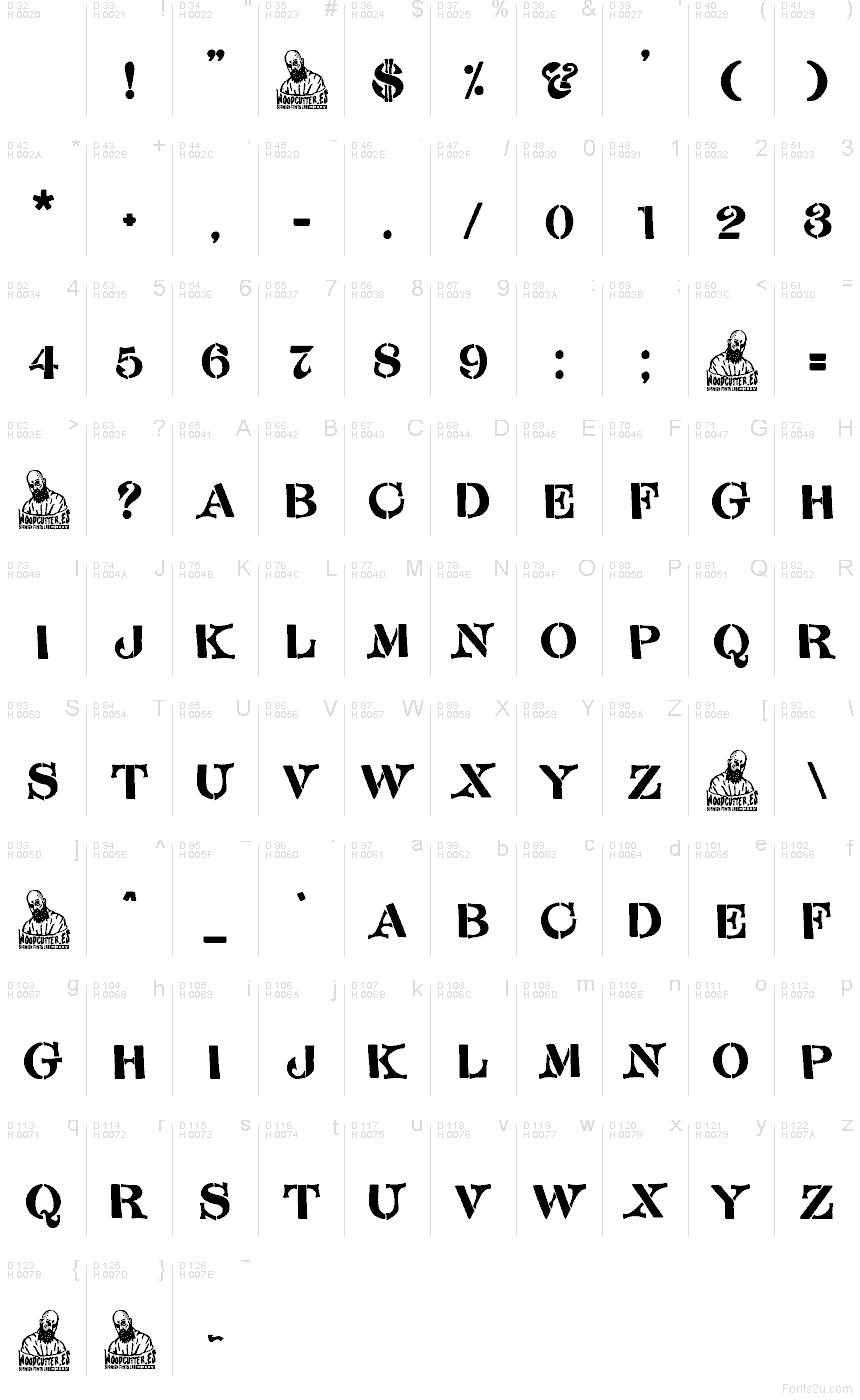
Bonita Stencil
Bonita Stencil font by Woodcutter is a free decorative stencil typeface that feels like it’s been sprayed straight from a can onto concrete. Chunky letterforms with sliced-out gaps and rough, ink-splattered edges give it a bold, streetwise attitude that still reads clearly at a glance. There’s a nice tension between its rigid, all-caps structure and the distressed texture, so it looks both controlled and rebellious at the same time.
Using Bonita Stencil, you can instantly add gritty character to posters, band artwork, guerrilla marketing, zines, skateboard graphics, event flyers, and bold merch. This free font thrives at large sizes where the broken edges and paint-like blotches can really show. Pair it with a clean geometric sans for small supporting text, and keep the color palette simple—black and white or a single accent color—to let the stencil shapes do the talking.